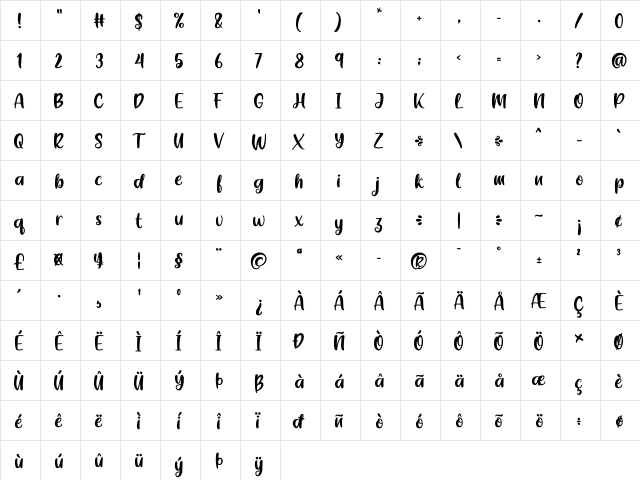
Yoghurt Black Regular
| Designer | Awan Senja Team |
Design Context for Yoghurt Black Typeface
Yoghurt Black is a composed and adaptable typeface that performs quietly and consistently across a wide range of design contexts.